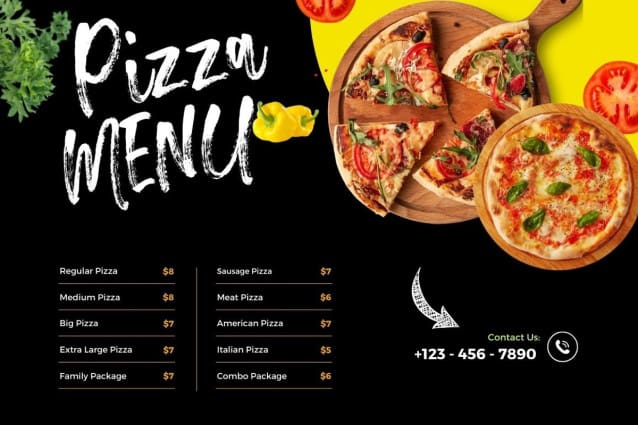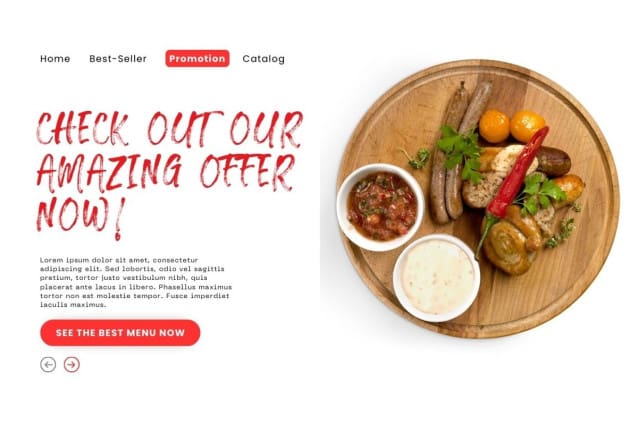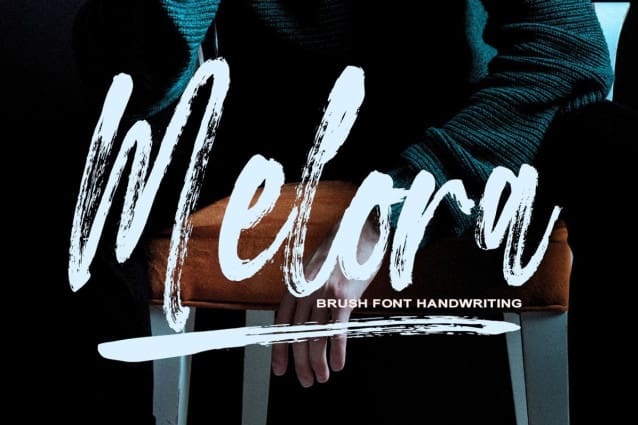
Melora Brush Font
Melora Brush Font is a brush-style typeface that gives an expressive and artistic handwritten look. Its forms are relatively bold with uneven edges, resembling quick and dynamic brush strokes. Melora is often used for designs that aim to create a relaxed, informal, or creative atmosphere, such as posters, invitations, or art projects. This style highlights naturalness and spontaneity, making it perfect for designs that need a personal and energetic touch.